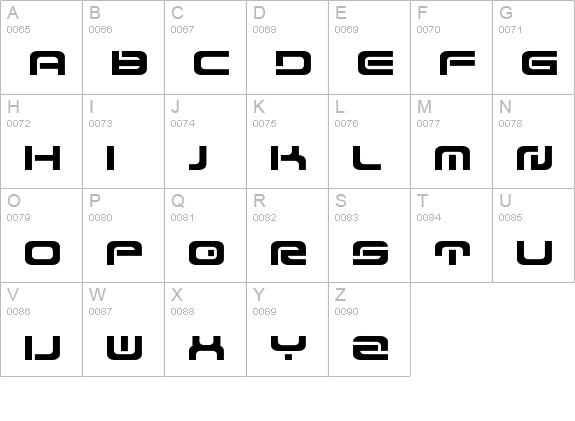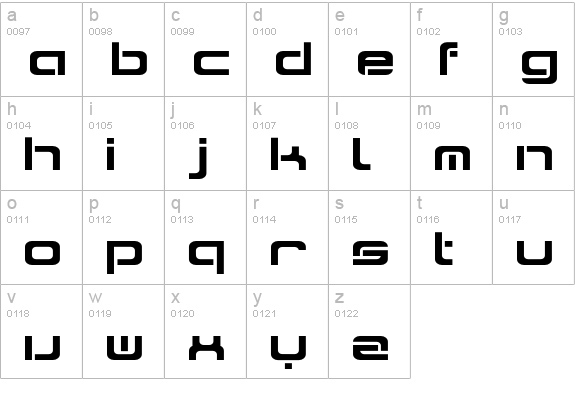
DOOMED Font Details
Introducing DOOMED font - a striking display typeface that exudes a sense of power and intensity. With its bold, sharp lines and edgy aesthetic, DOOMED is perfect for making a statement in your design projects. Whether you're looking to create eye-catching headlines, posters, or branding materials, this font is sure to command attention. What sets DOOMED font apart is not only its powerful design but also its versatility. It can be used in a variety of creative projects, from gaming and entertainment to fashion and music. The unique character shapes and strong letterforms make it a standout choice for projects that demand a bold and daring look. Best of all, DOOMED font is available for free download at FontsMarket.com. Simply head to the website to access this dynamic typeface and unleash its creative potential in your designs. Embrace the boldness of DOOMED font and make a lasting impression with your next project.